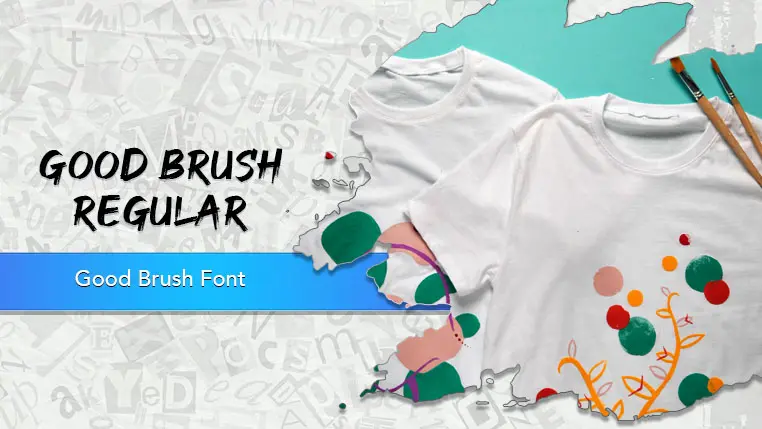
The Good Brush font family may be ideal for you if you enjoy working on an artistic design project. The lively, expressive look of this typeface, which was created by Sarah Robbaniyyah, makes it ideal for T-shirt Design and Apparel, Social Media Graphics And its Excellent for brands that want to convey an authentic, artistic, bold, or raw aesthetic. Think of artisan shops, tattoo studios, indie music labels, casual eateries, or streetwear brands. and other light-hearted visual projects.
Regular are the one primary font styles of the Good Brush font family. You may build dynamic, visually appealing text layouts with the distinct flair that each style offers. With crisp, readable lines and a relaxed tone.